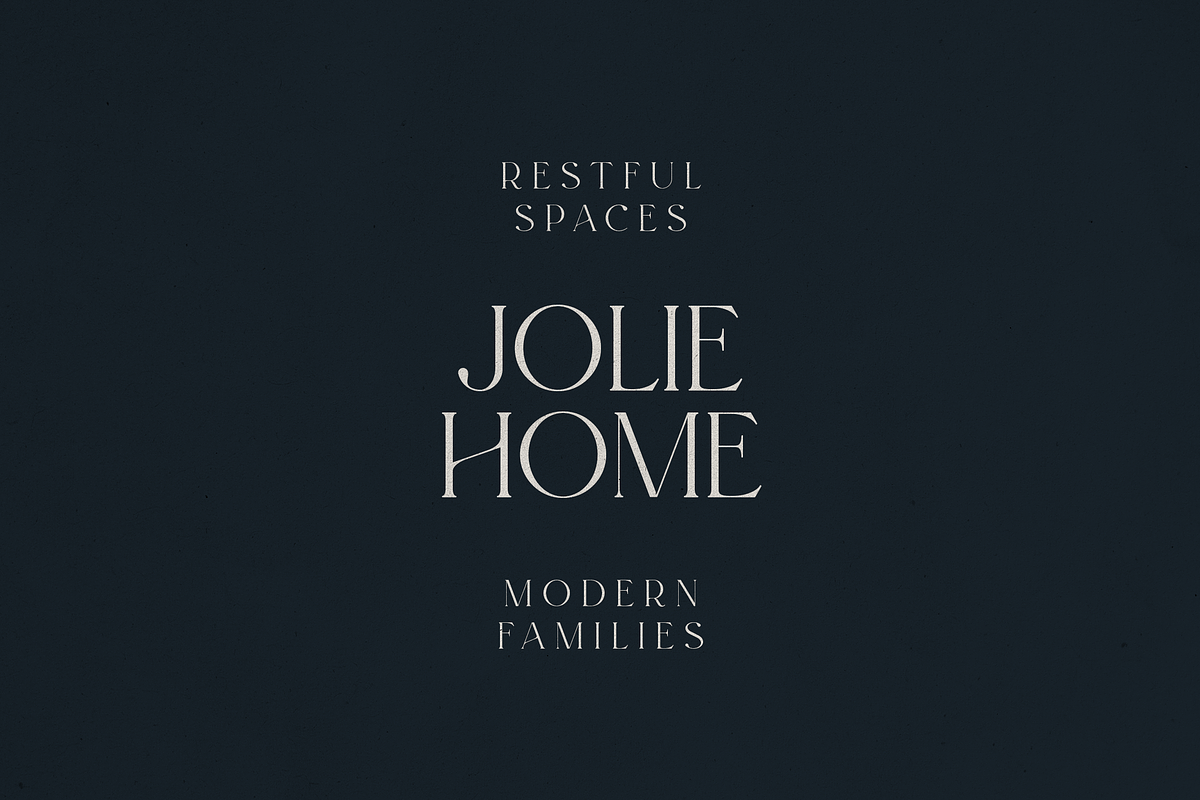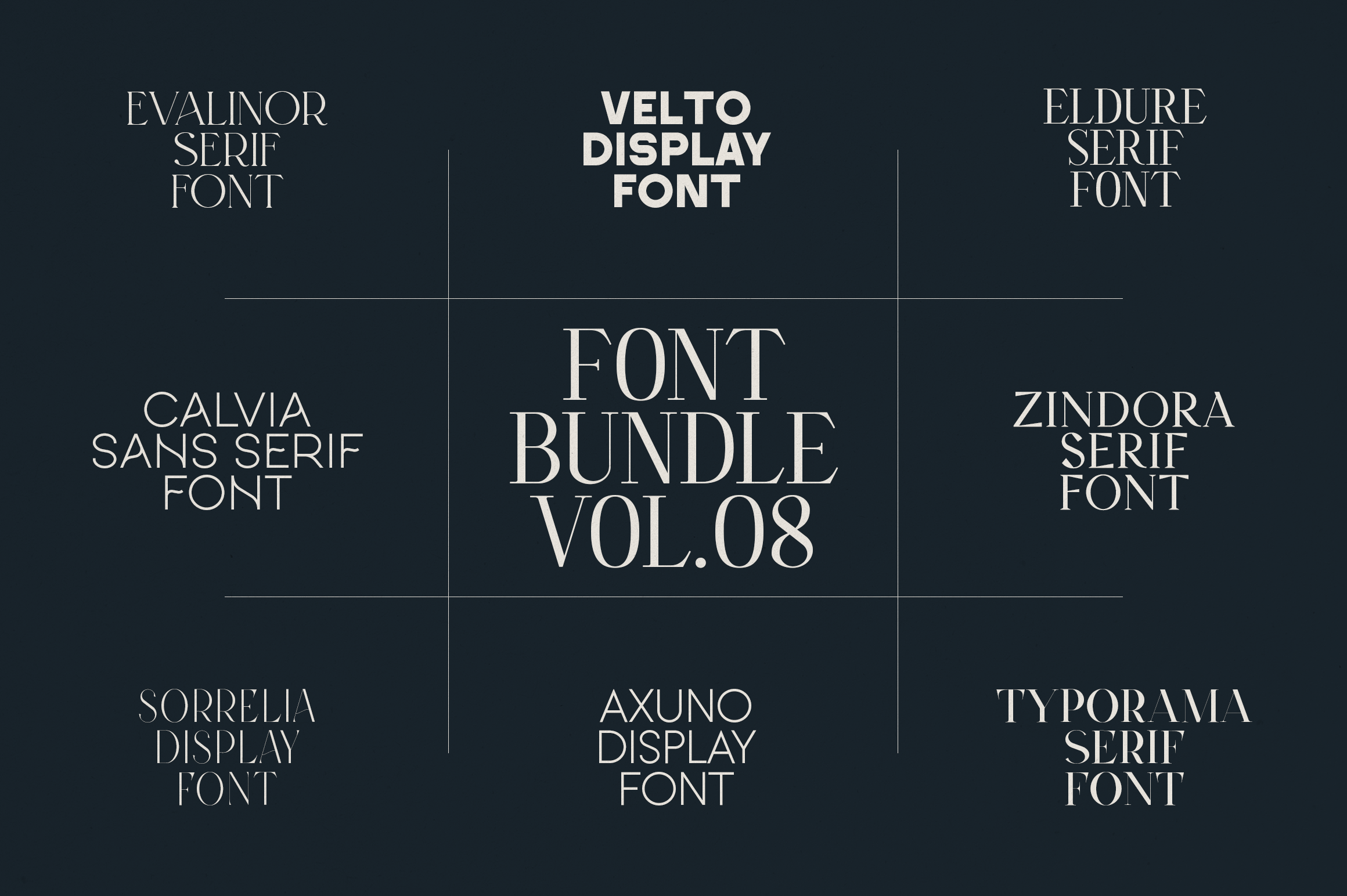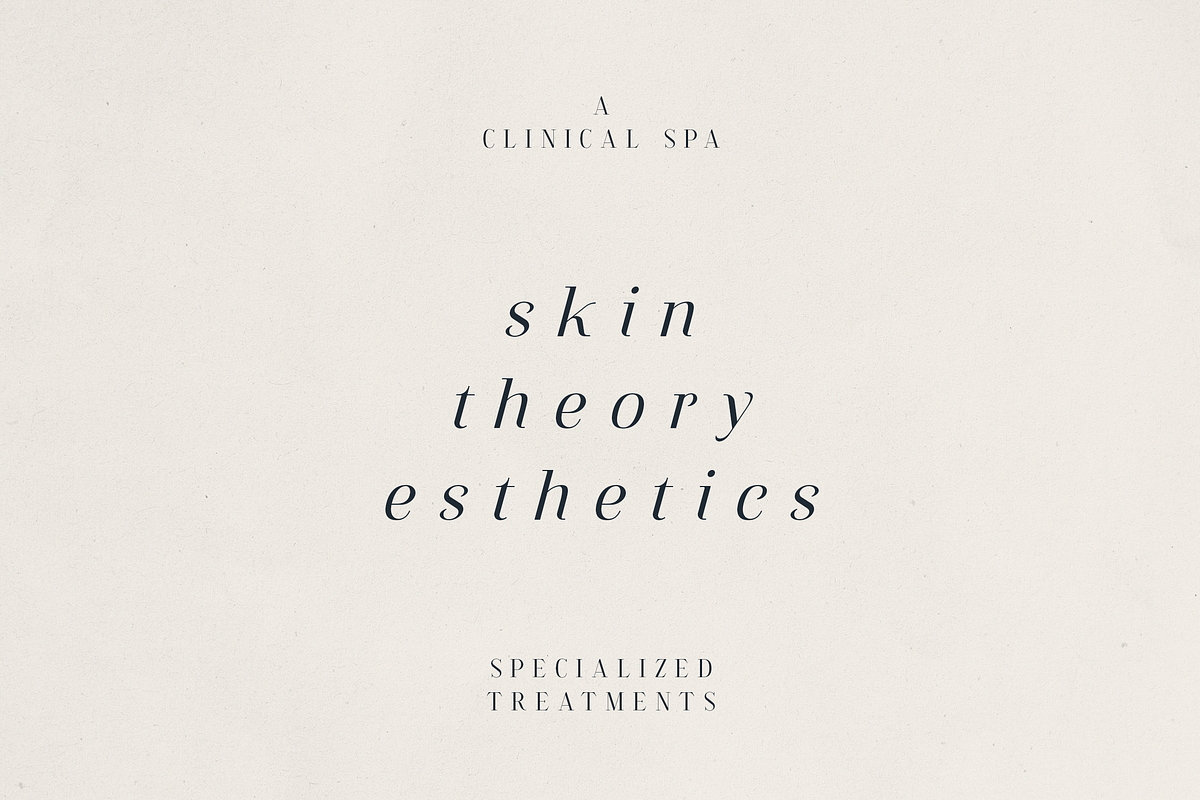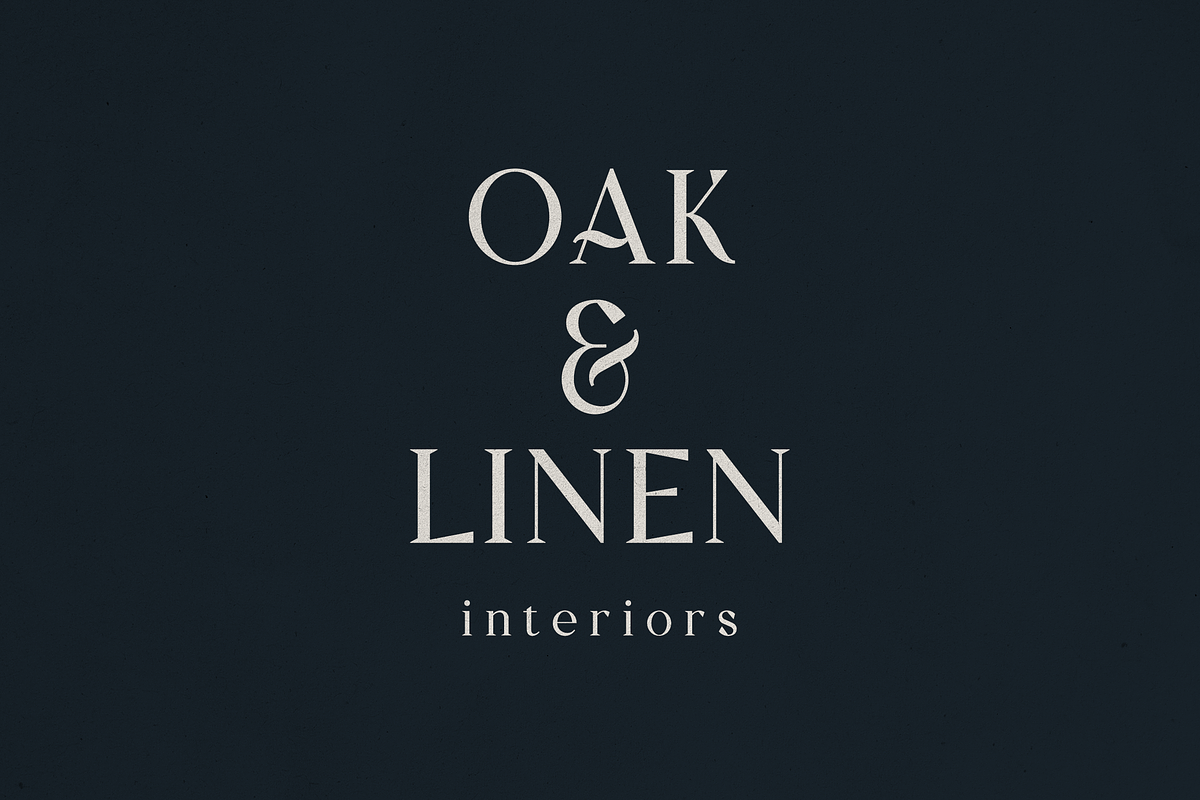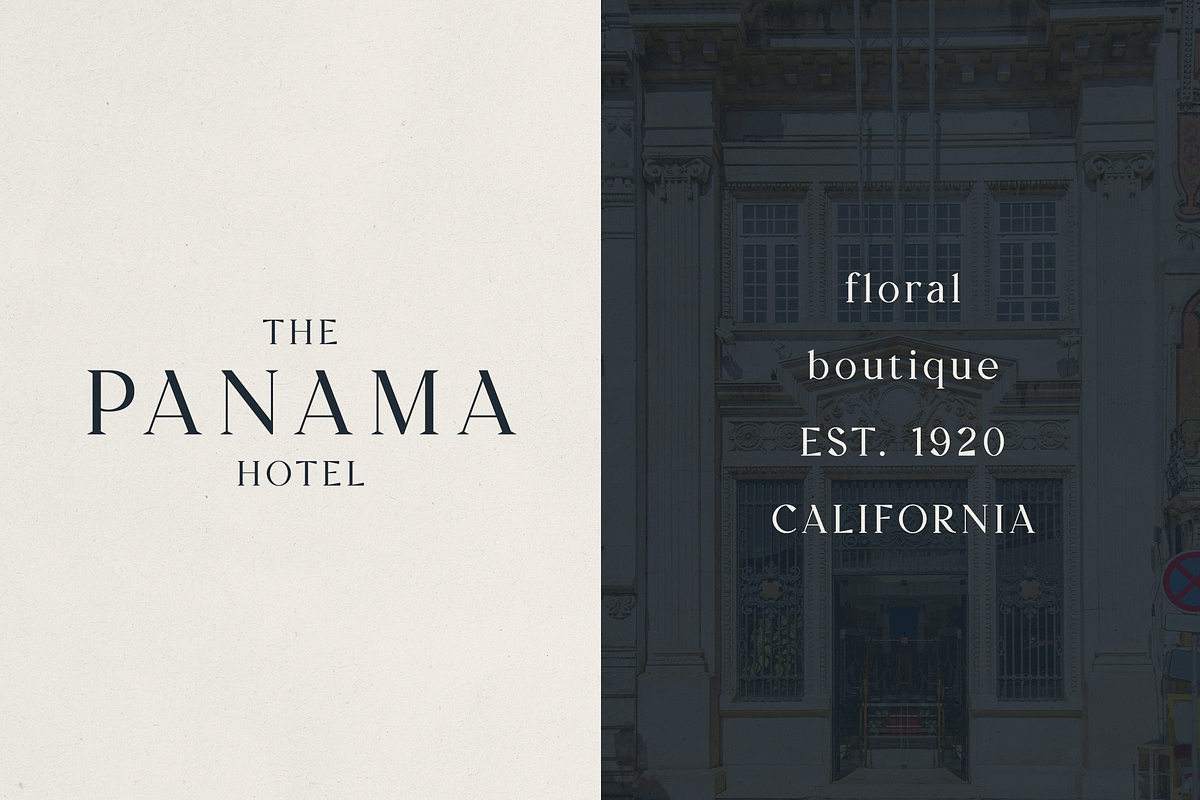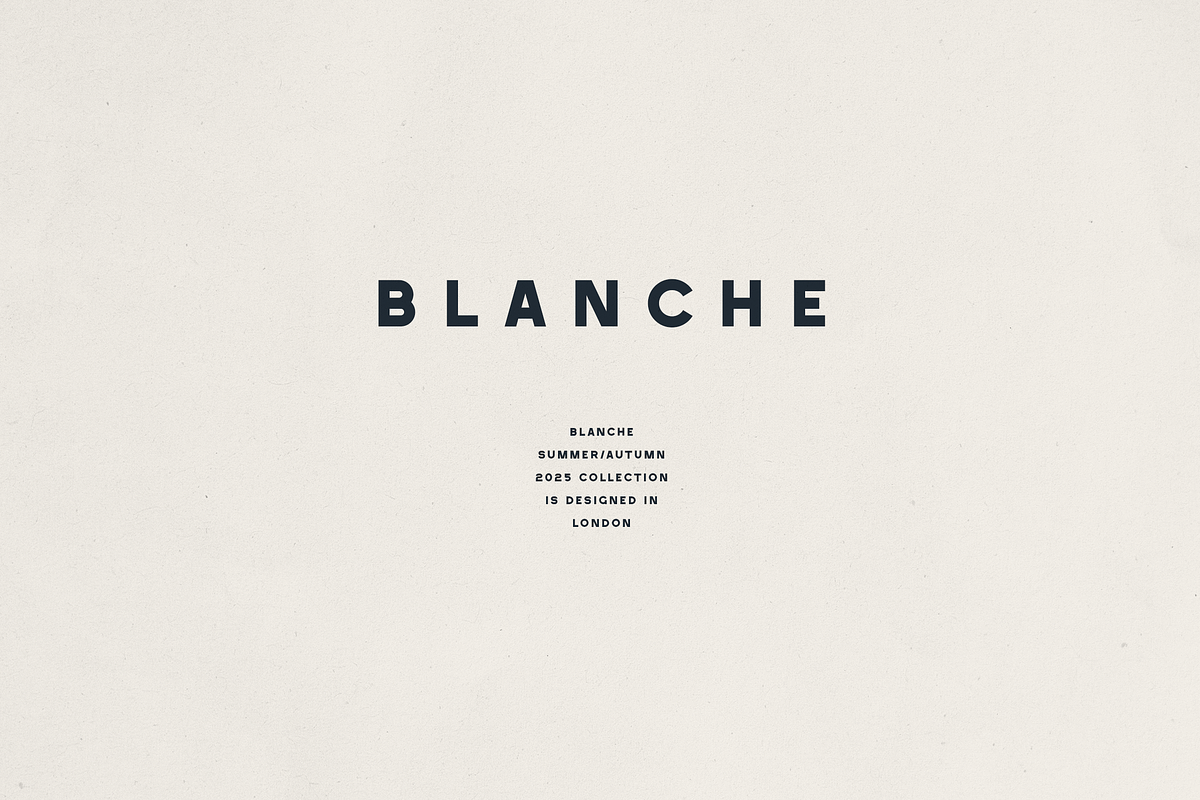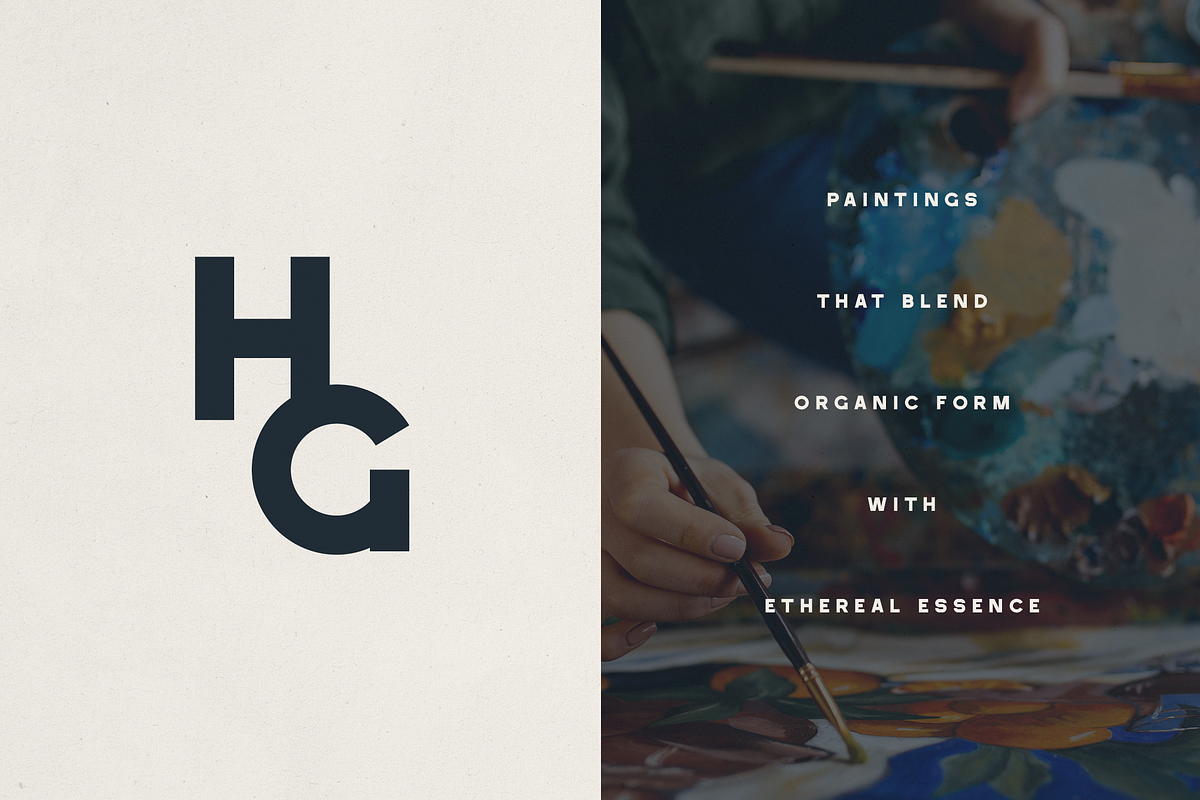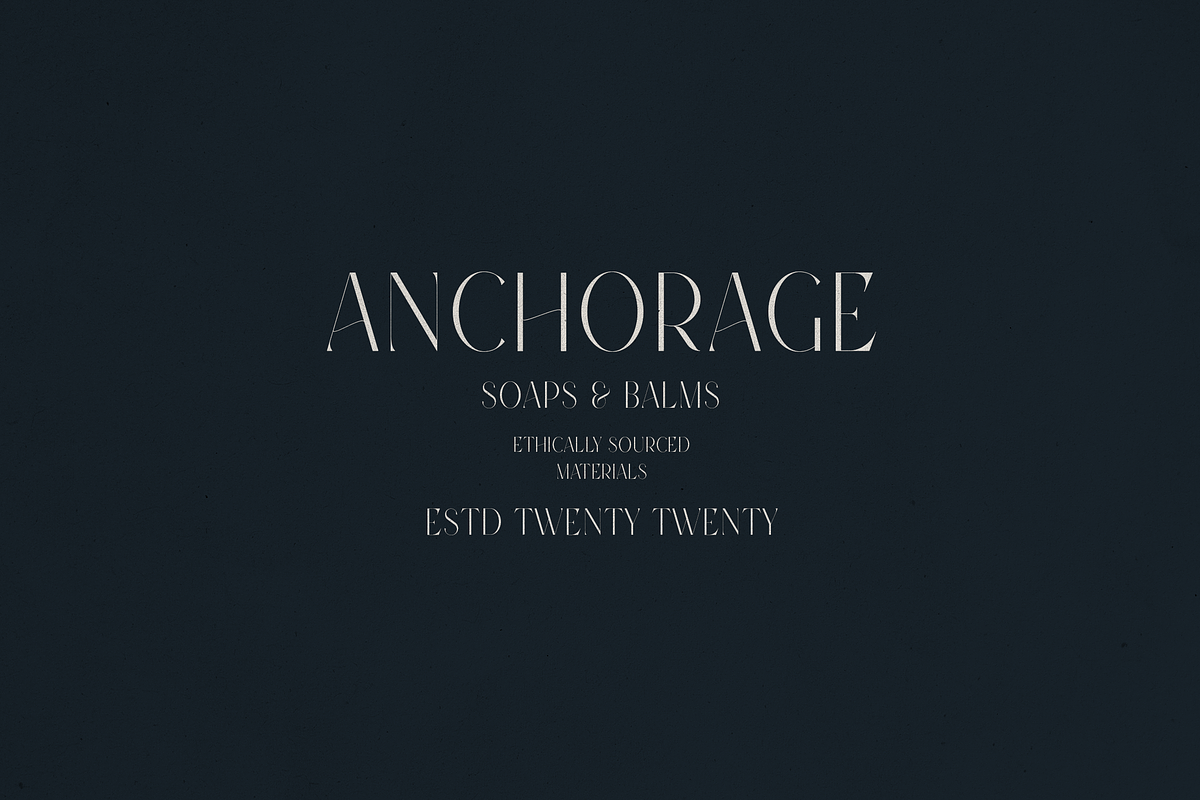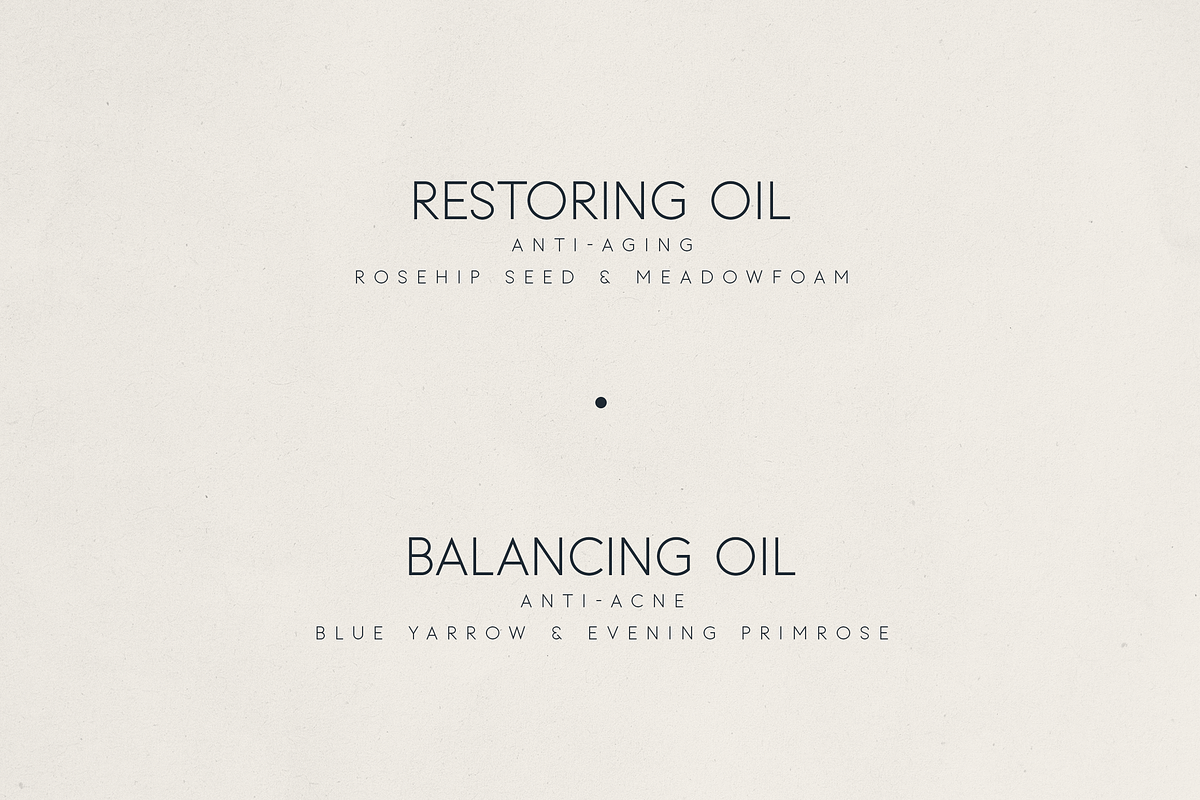
Font Bundle Vol.08 - 8 Premium Fonts
Font Bundle Vol.08 – Elegant Serif, Display & Sans Serif Typeface Collection
Step into a world of sophisticated typography with Font Bundle Vol.08 – a premium collection of 8 professionally designed fonts that combine modern elegance, refined serifs, bold displays, and versatile sans serifs.
Created for brand designers, creatives, and agencies, this bundle delivers timeless style and contemporary detail, making it the perfect choice for logos, luxury branding, wedding invitations, magazines, packaging, and high-end digital projects.
Fonts Included:
- Evalinor Serif Font – Elegant with a graceful high-contrast style, perfect for luxury brands.
- Eldure Serif Font – Classic and timeless for editorial and professional use.
- Zindora Serif Font – Stylish and distinctive for wedding and lifestyle projects.
- Typorama Serif Font – Bold, modern, and versatile for branding and packaging.
- Calvia Sans Serif Font – Minimal and clean for contemporary layouts.
- Velto Display Font – Strong and striking, perfect for logos and posters.
- Sorrellia Display Font – Unique and artistic for fashion and creative work.
- Axuno Display Font – Modern geometric appeal for eye-catching headlines.
Why Designers Choose This Bundle:
- A perfect mix of serif, sans serif, and display fonts
- Designed for logos, magazines, websites, social media, and packaging
- Ideal for luxury brands, weddings, fashion, beauty, and lifestyle projects
- Versatile fonts that combine timeless elegance with modern creativity
Who Is This Bundle For?
- Brand designers building premium identities
- Creative studios looking for versatile typography
- Entrepreneurs & small businesses needing stylish fonts for packaging & social media
- Wedding & event designers searching for elegant typefaces
- Editorial & magazine designers wanting chic, high-contrast typography